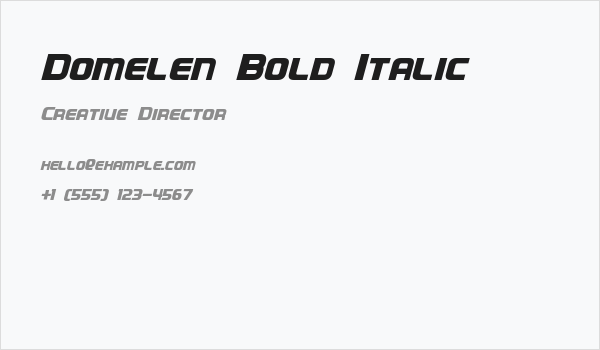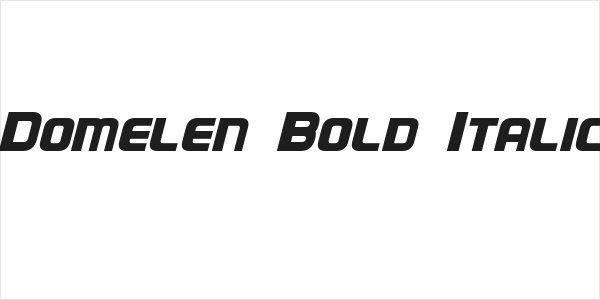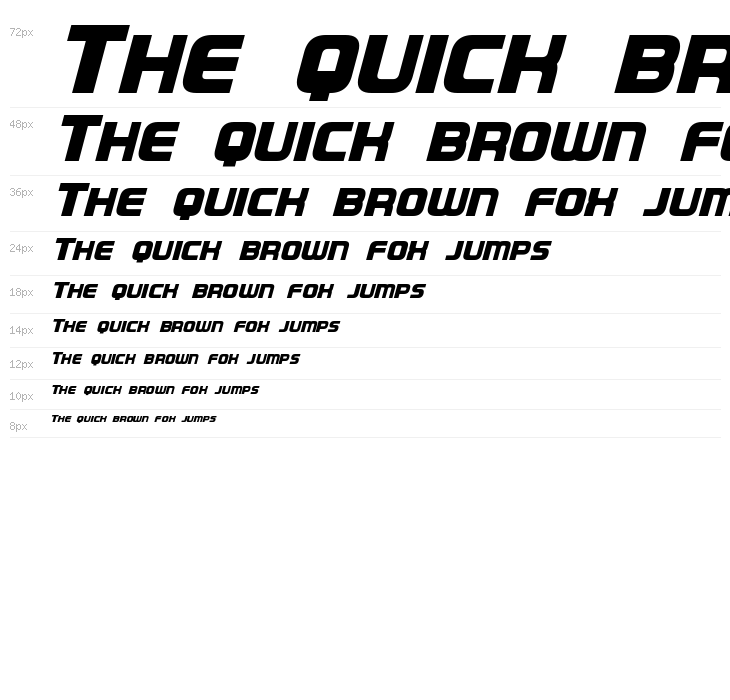
Domelen Bold Italic Font
Domelen Bold Italic Description
This font features a bold and italicized style, characterized by its strong, dynamic appearance. The letters are slightly slanted, giving a sense of motion and energy. The strokes are thick and consistent, providing a robust and impactful look. The characters are well-defined with smooth curves and sharp edges, creating a modern and sleek aesthetic. The numbers and special characters maintain the same bold and italicized style, ensuring uniformity across all elements. This font is ideal for making a statement, with its eye-catching and assertive design.
Proposed ProjectsIdeal for sports branding, dynamic posters, and modern advertising campaigns.